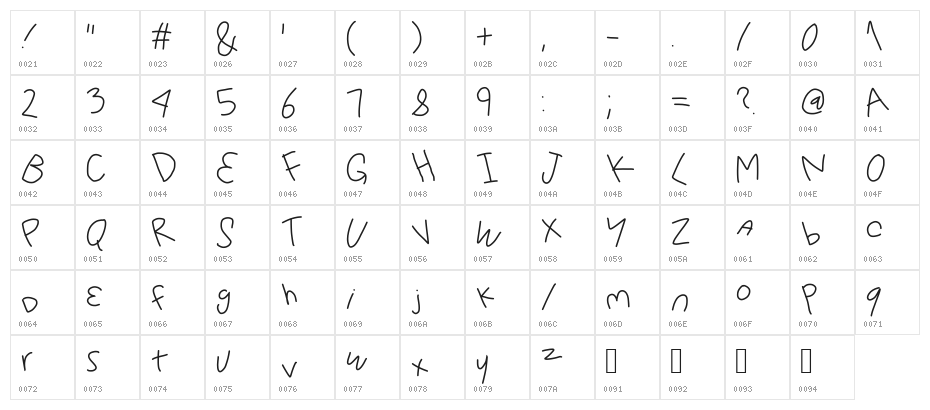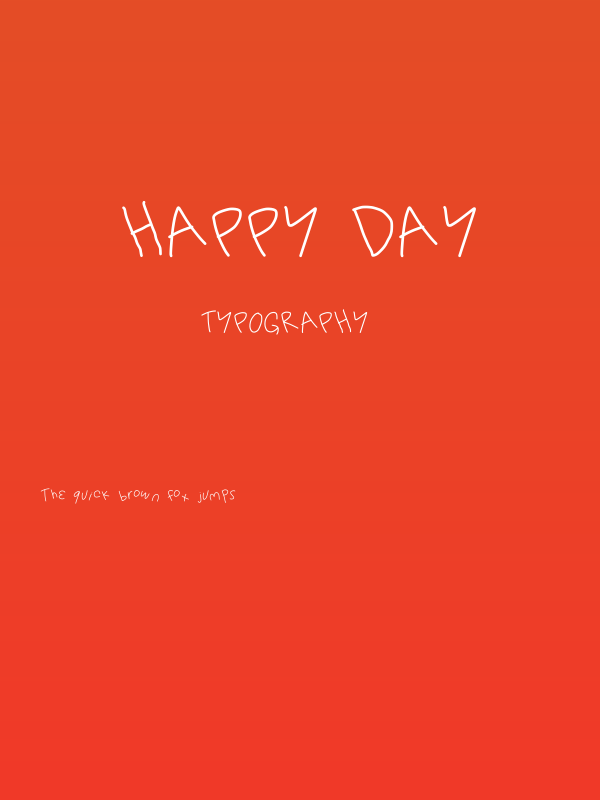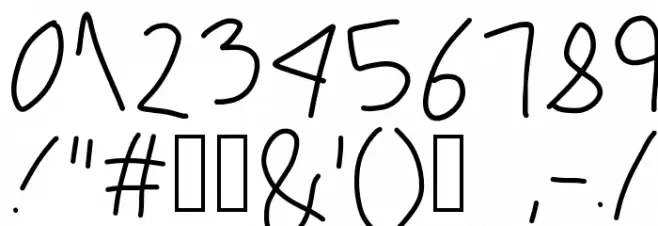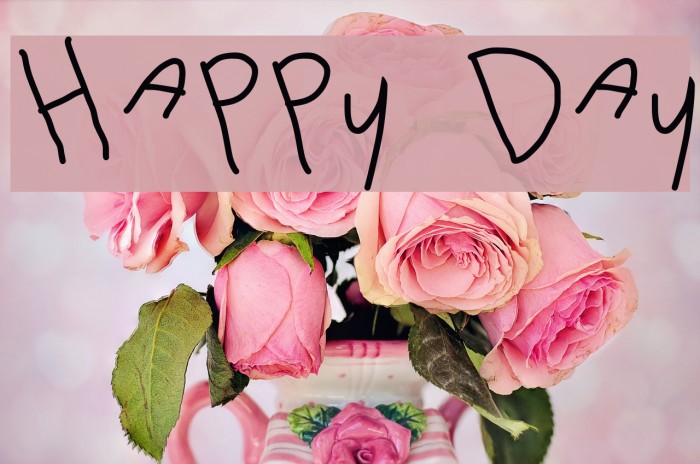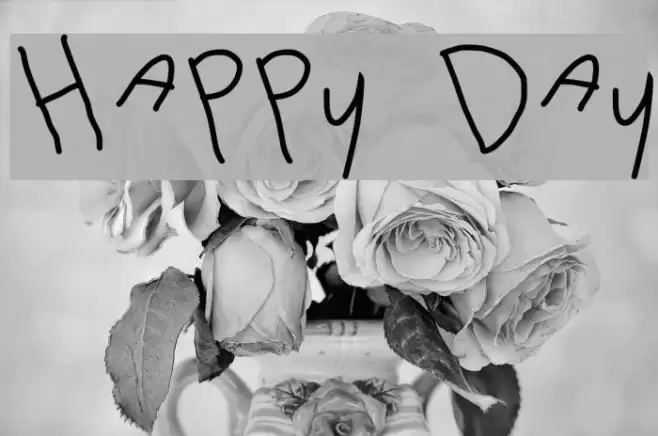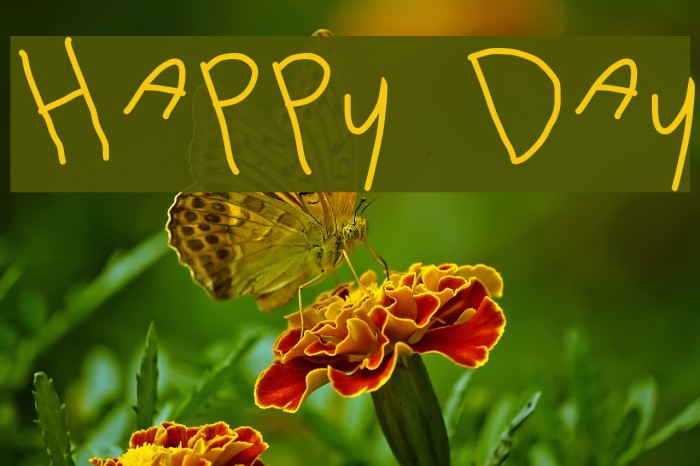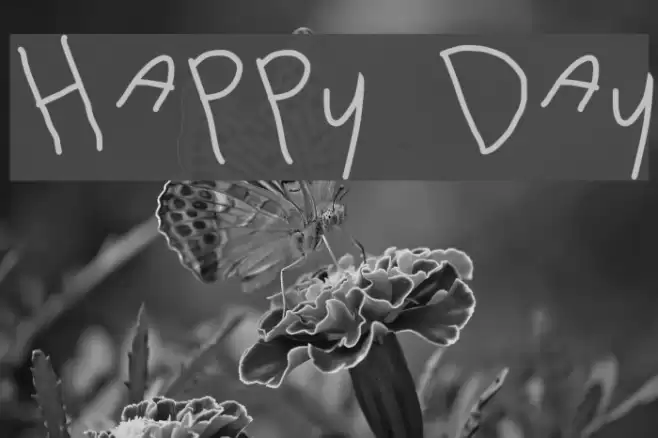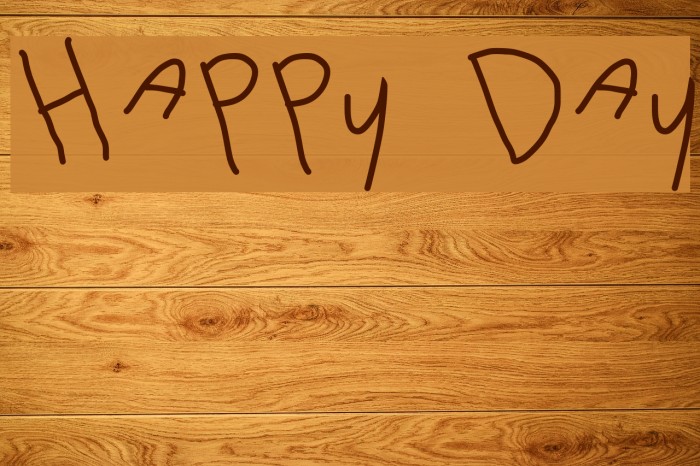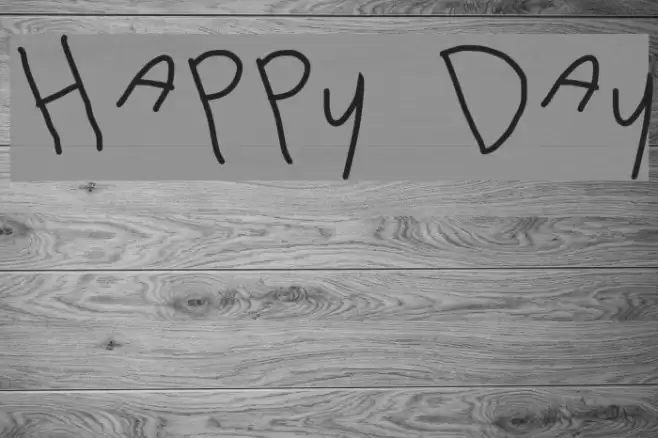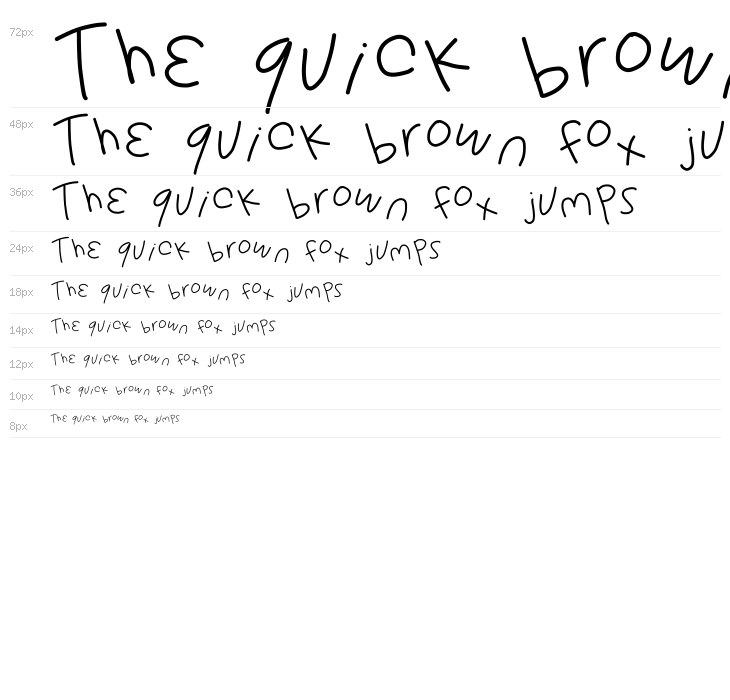
Happy Day Font
Happy Day Description
This playful and informal font features a handwritten style with irregular strokes and a casual appearance. The letters are slightly tilted, giving a dynamic and lively feel. The uppercase and lowercase characters maintain a consistent style, with rounded edges and a slightly uneven baseline, enhancing its whimsical nature. Numbers and special characters follow the same informal design, making it suitable for creative and fun projects. The font's overall appearance is approachable and friendly, ideal for conveying a sense of warmth and spontaneity.